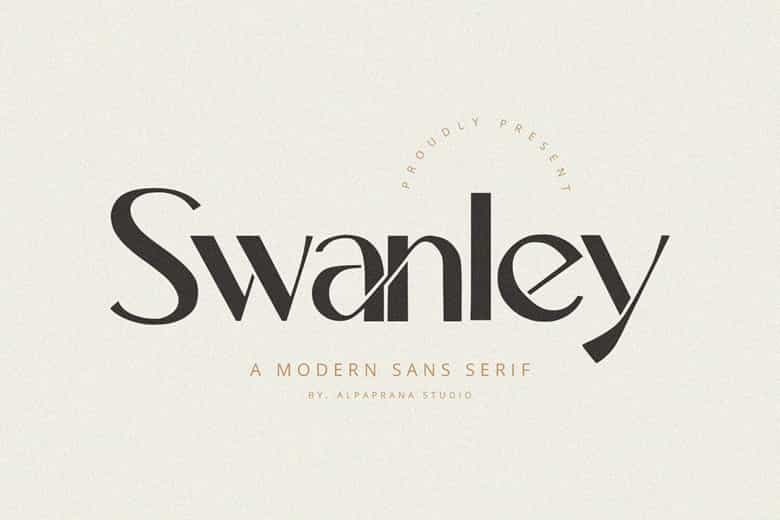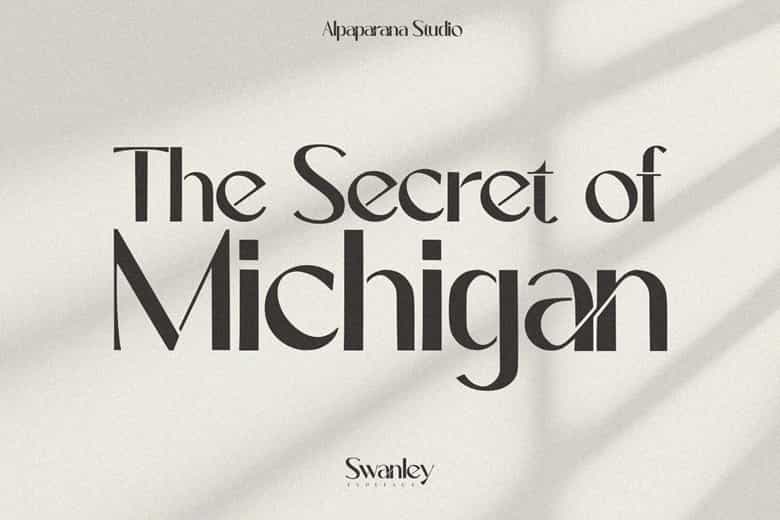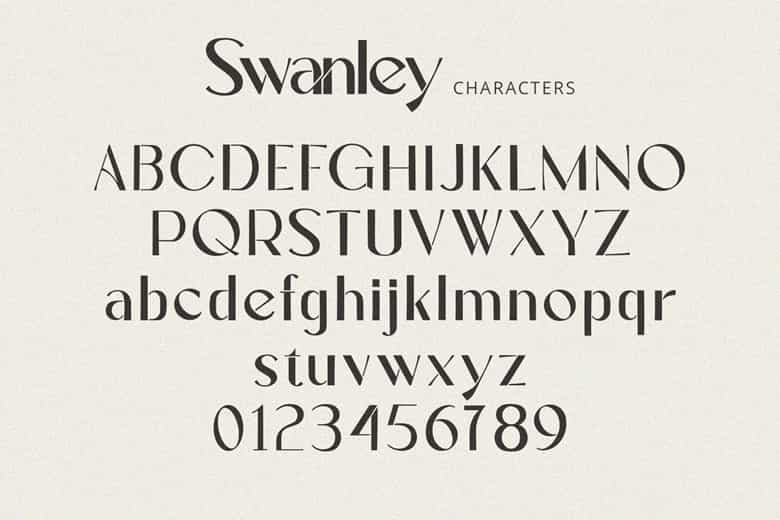
Swanley is a sans serif typeface that has elegant and contemporary aesthetics. They will be perfect for branding done on logos, lettering logotype clothing, print magazine packaging, posters stores, shopping bags, t-shits, book covers, photography, special event and any other design projects.